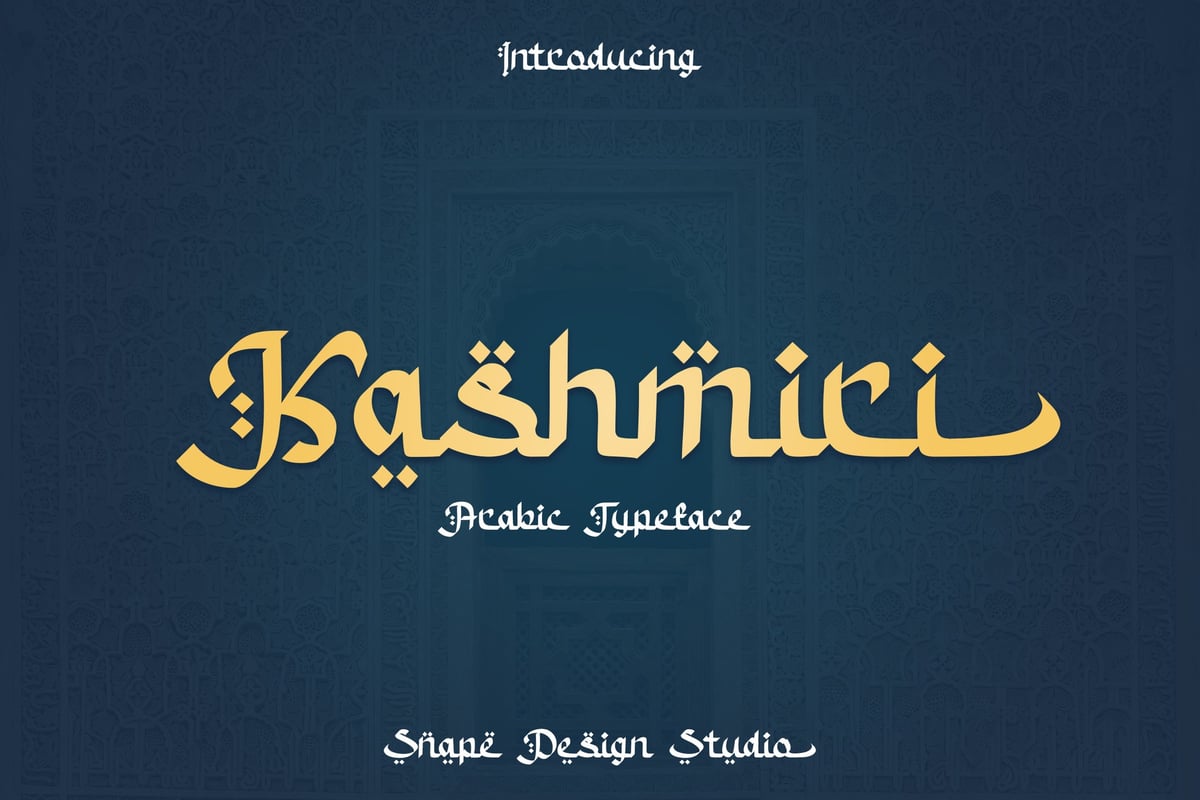
Kashmiri - Arabic Typeface
Transform your designs with authentic Middle Eastern elegance using this stunning Arabic-inspired display font. Kashmiri captures the distinctive style and cultural richness of Middle Eastern Arabic typography, making it the perfect choice for projects that demand visual impact and cultural authenticity. This decorative typeface brings an ornate, traditional aesthetic to contemporary design work. Ideal applications include: Movie titles and film projects Documentary productions Logo design and b...